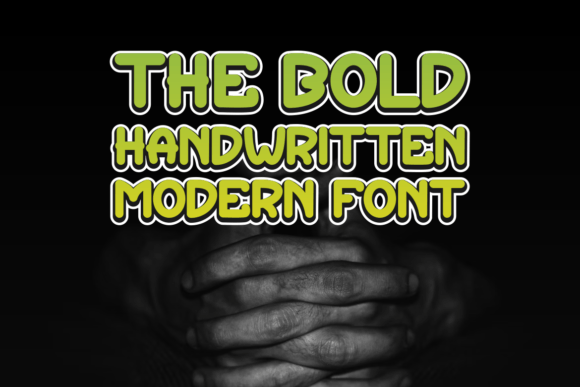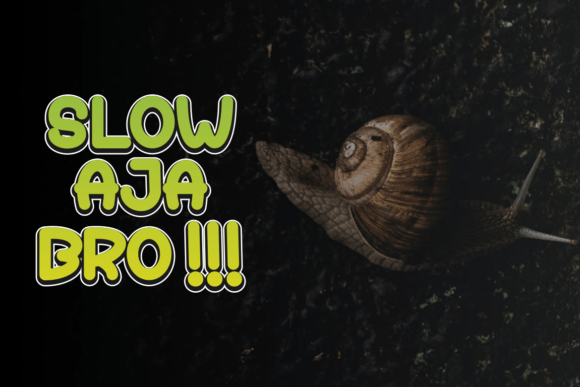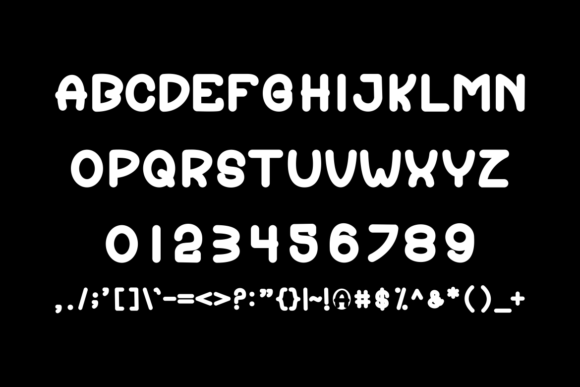
Introduction to Realhand Font
Realhand is a bold and authentic display font suitable for any branding project like logo, t-shirt printing, esports, and many more.
It will look outstanding in a wide range of contexts .
Key Features of Realhand Font
Why Choose Realhand Font?
Realhand Font offers exceptional quality and versatility, making it a valuable addition to your design toolkit. Whether you’re creating for personal projects or commercial use, Realhand Font delivers professional results.